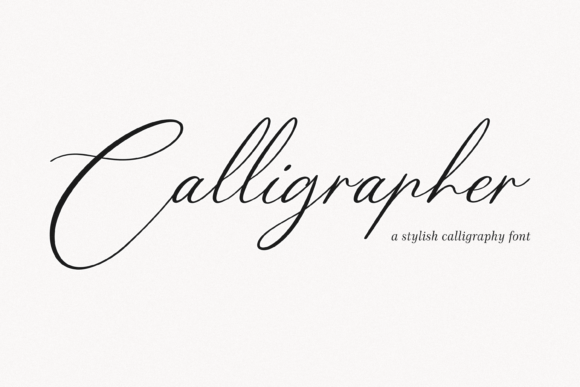
Unleash Your Creativity with the Magical Calligrapher Font
Do you remember the moment when you stumbled upon a beautiful quote on Instagram, and you knew right away that you had to recreate it in your own unique way? Perhaps it was a delicate handwritten note, or a stunning wedding invitation that caught your eye. Whatever it was, it sparked something within you, and you couldn’t wait to get creative.
For designers and creatives like you, finding the perfect font can be the missing piece that brings your vision to life. That’s where the Calligrapher Font comes in – a carefully crafted script font that exudes elegance and sophistication. Whether you’re looking to add a touch of whimsy to your social media posts or create stunning calligraphy scripts for your DIY projects, this font is sure to turn your creative ideas into true works of art.
Key Features of Calligrapher Font
- Unique Characteristics: The Calligrapher Font features a beautiful, flowing script style with intricate flourishes and connections between letters, making it perfect for creating elegant and sophisticated designs.
Calligrapher Font Review
Overall, I was really impressed with the Calligrapher Font. It’s a beautifully crafted script font that can add a touch of elegance to any design project.
- ✨ Elegant and refined feel: The font is perfect for projects that require a touch of sophistication and luxury.
- ✨ Versatile: It can be used for both body text and headings, making it a great addition to any font collection.
- ✨ Beautiful ligatures: The font’s ligatures are well-designed and add to its overall charm.
- ⚠️ Limited language support: The font may not support all languages, which can be a limitation for designers working on multilingual projects.
- ⚠️ Not ideal for small text: The font’s elegant feel can make it difficult to read in small sizes, so it’s best to use it for larger text sizes.
Overall, I’d give the Calligrapher Font 4.5 out of 5 stars. It’s a beautiful font that can add a touch of elegance to any design project, but it does have some limitations that designers should be aware of.
Practical Application Guide for Calligrapher Font
Experiment with different font sizes, styles, and colors to create a unique look.
Use the font in combination with other design elements, such as illustrations or graphics, to add depth and interest.
Pay attention to the font’s legibility and adjust the size and style accordingly.
Special occasion cards and gifts
Brand logos and marketing materials
Artistic and creative projects
Alternatives to Calligrapher Font
Lobster Font is a cursive script font that is perfect for adding a touch of elegance to your designs. It is ideal for use in headings, titles, and short paragraphs where a decorative feel is desired. Lobster Font has a more casual and relaxed feel compared to Calligrapher Font, making it suitable for a wider range of designs.
Comparison: Lobster Font is more casual and playful than Calligrapher Font, with a more fluid and connected letterform. It is also more versatile and can be used in a variety of design contexts, from fashion and beauty to food and beverage.
Carolyna Pro is a modern calligraphy font that is designed to evoke the feeling of traditional hand-lettering. It is ideal for use in titles, headings, and short paragraphs where a sophisticated and elegant feel is desired. Carolyna Pro has a more refined and polished feel compared to Calligrapher Font, making it suitable for high-end designs and luxury brands.
Q: What font sizes and styles are available in the Calligrapher Font?
The Calligrapher Font features a wide range of font sizes, from 8pt to 72pt, and includes various styles such as Regular, Italic, Bold, and Bold Italic. Additionally, the font includes a range of ligatures and swashes to enhance its calligraphic feel.